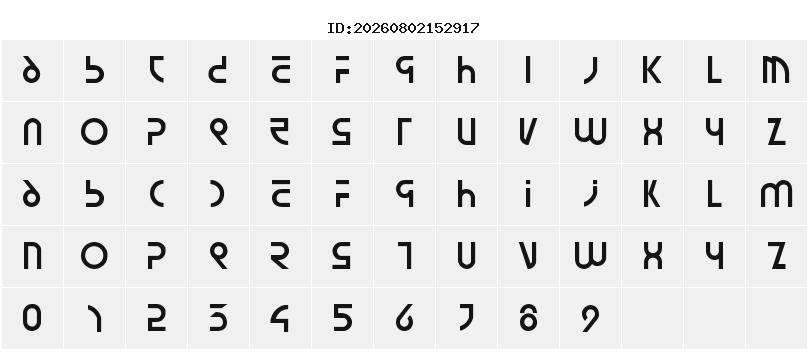
newsiren Preview
• Font Name: newsiren
• Font ID: newsiren:Version 1.00
• Full Font Name: newsiren
• Version: Version 1.00 May 20, 2006, initial release
• PostScript Name: newsiren
About newsiren.ttf
newsiren.ttf is a modern, elegant sans-serif font designed for ultimate readability and visual harmony. Perfect for branding, headlines, web design, and print materials.